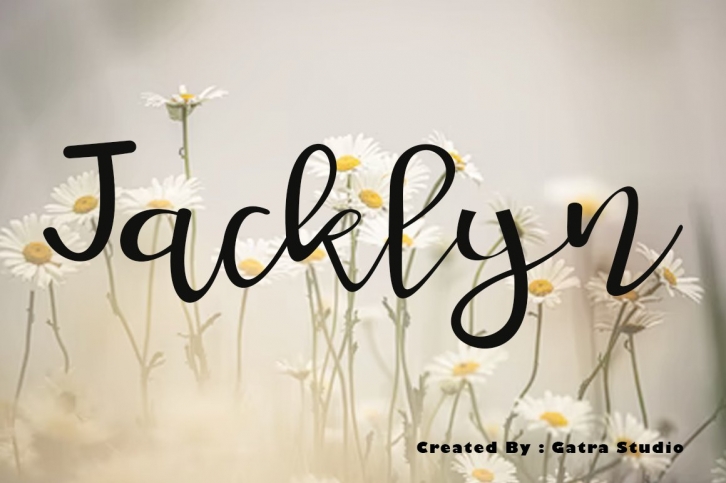
Jacklyn is a great font that was designed by Gatra Std. Imagine the amount of combinations you can create using this font! The archive is 19.89 MB and it was released on October 6, 2021. Jacklyn looks beautiful on wedding invitations, greeting cards, logos, posters, labels, t-shirt designs, logos, business cards and is perfect for use in ink or watercolor works, fashion, magazines, packaging and food menus, children's books and more!